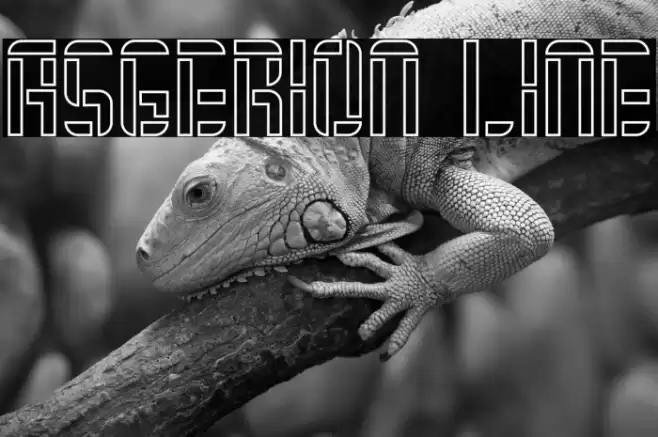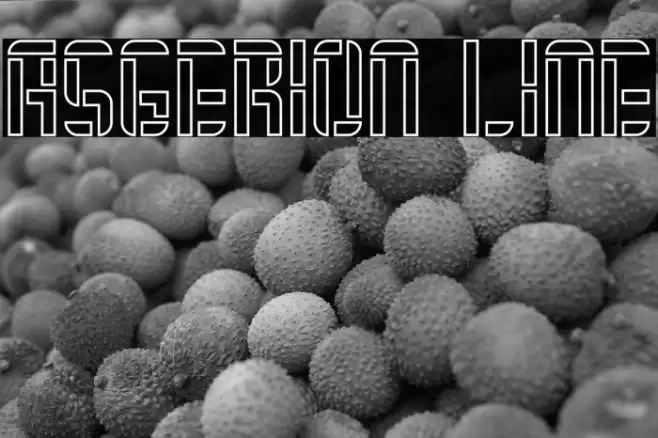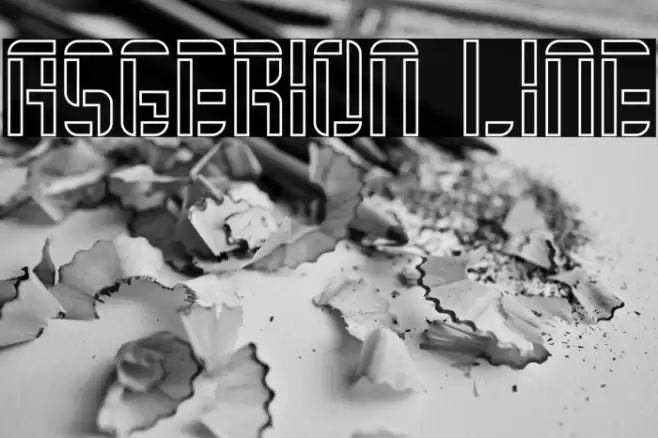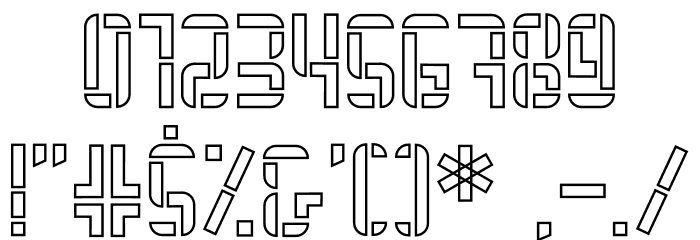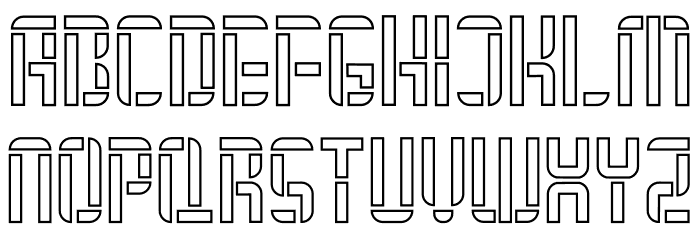
Asgerion Line Font
Asgerion Line Description
This font features a unique, geometric design with a hollow, outlined structure. Each character is constructed with straight lines and sharp angles, creating a futuristic and mechanical appearance. The uppercase and lowercase letters maintain a consistent height, contributing to a uniform look. The numerals and special characters follow the same design principles, ensuring cohesion across all glyphs. The font's open spaces and linear elements give it a modern and technical feel, making it stand out in digital and print media.
A geometric, outlined font with a futuristic and mechanical style from Uncategorized fonts.
- Proposed Projects: Ideal for technology-themed projects, sci-fi posters, branding for tech companies, and modern art installations.